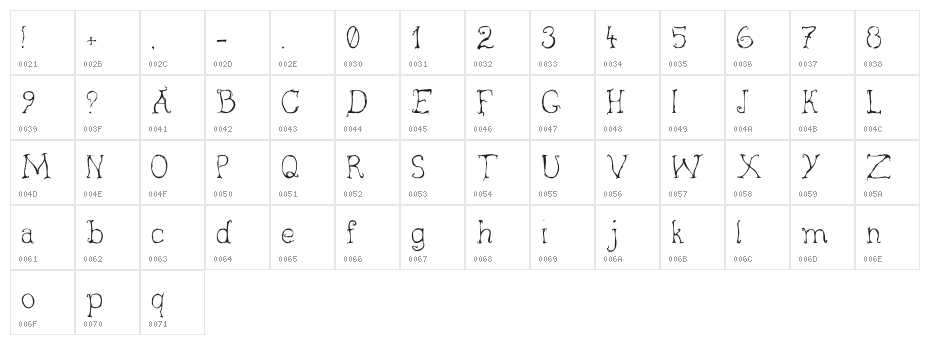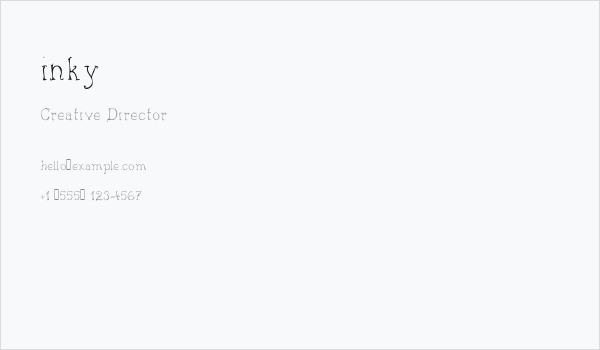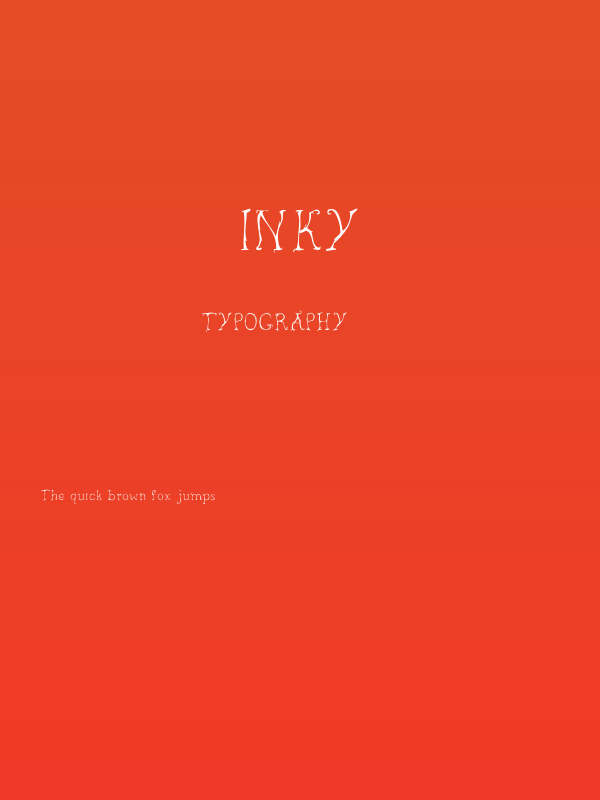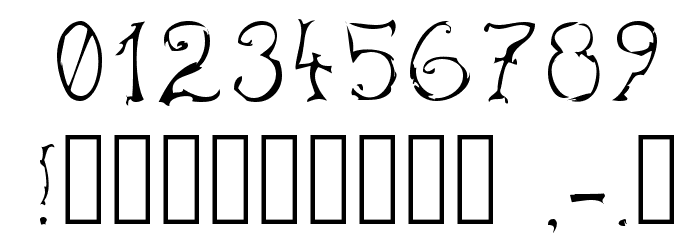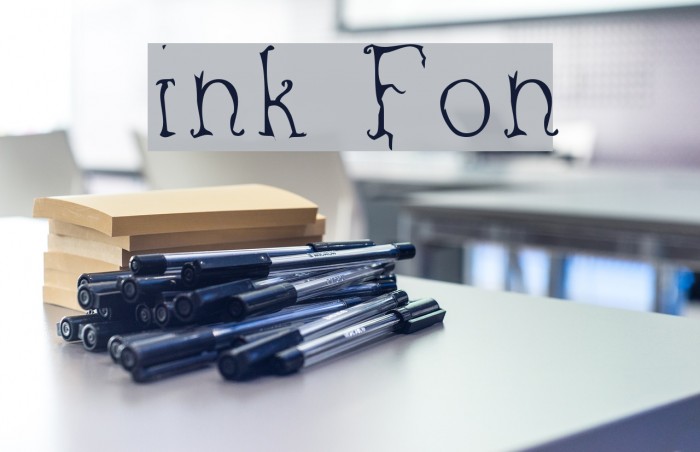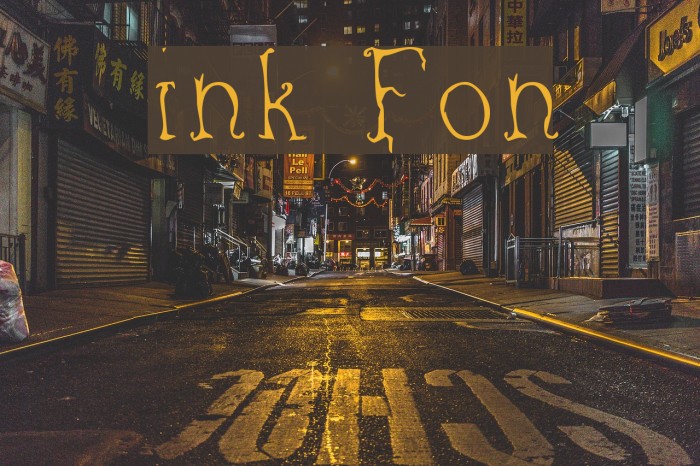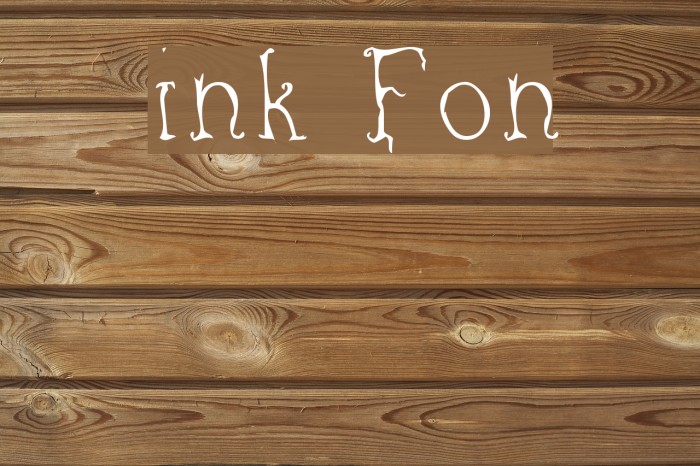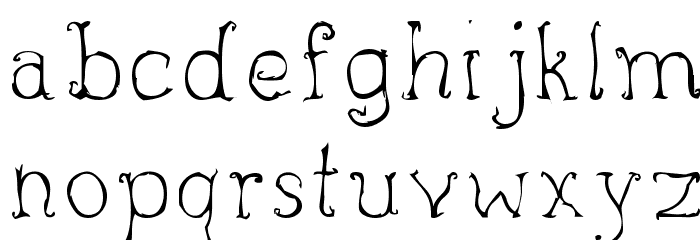
inky Font
inky Description
This font features a whimsical and artistic design, characterized by its playful and irregular strokes. The letters have a hand-drawn appearance, with varying line thickness that adds a dynamic and lively feel. The uppercase and lowercase letters maintain a consistent style, with unique flourishes and curves that give each character a distinct personality. The numbers and special characters follow the same artistic theme, ensuring a cohesive look across all elements. This font is perfect for projects that require a touch of creativity and individuality.
| Use Case | Logos, Posters, Creative projects |
| Proposed Projects | Ideal for creative projects such as children's books, artistic posters, and unique branding materials. |